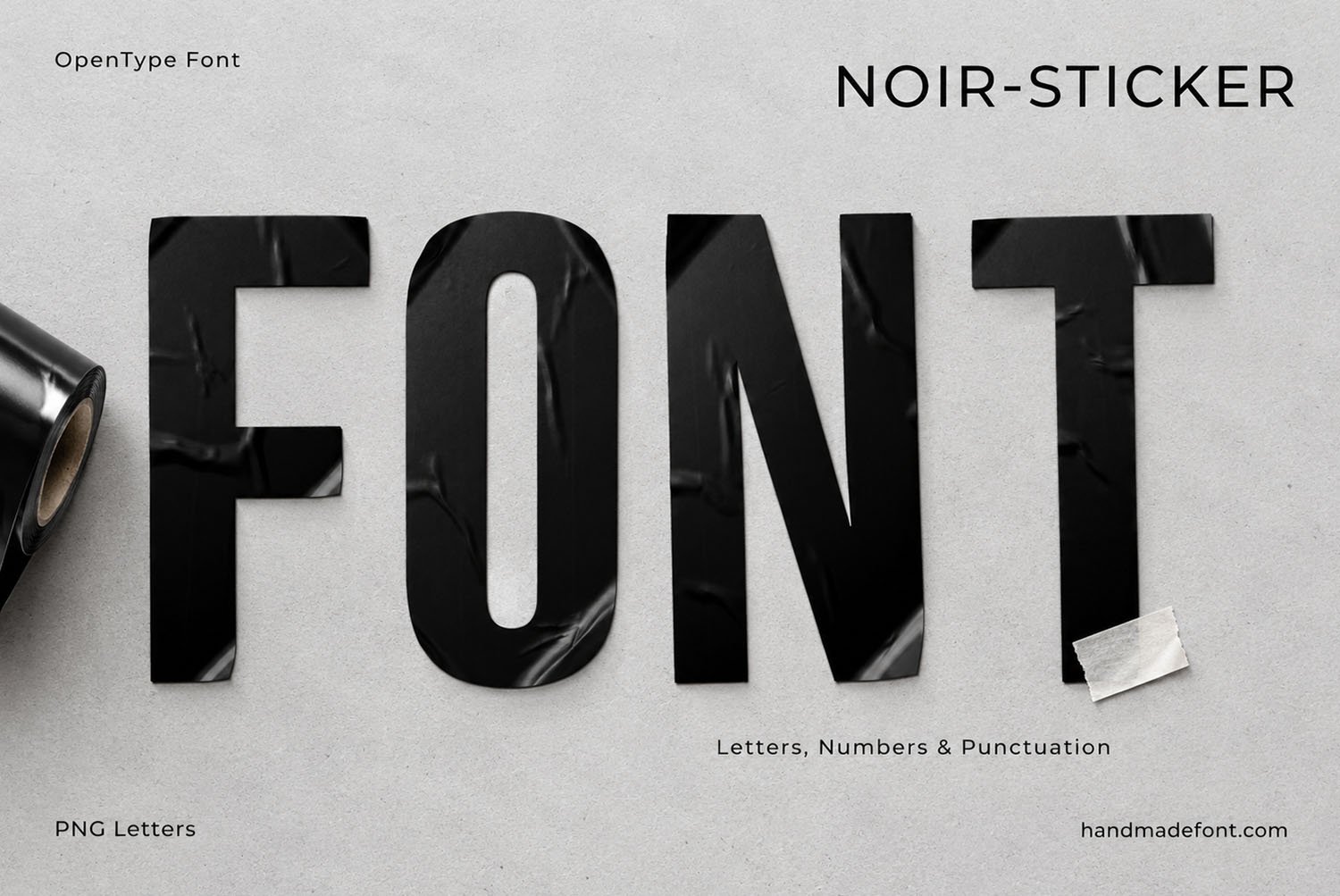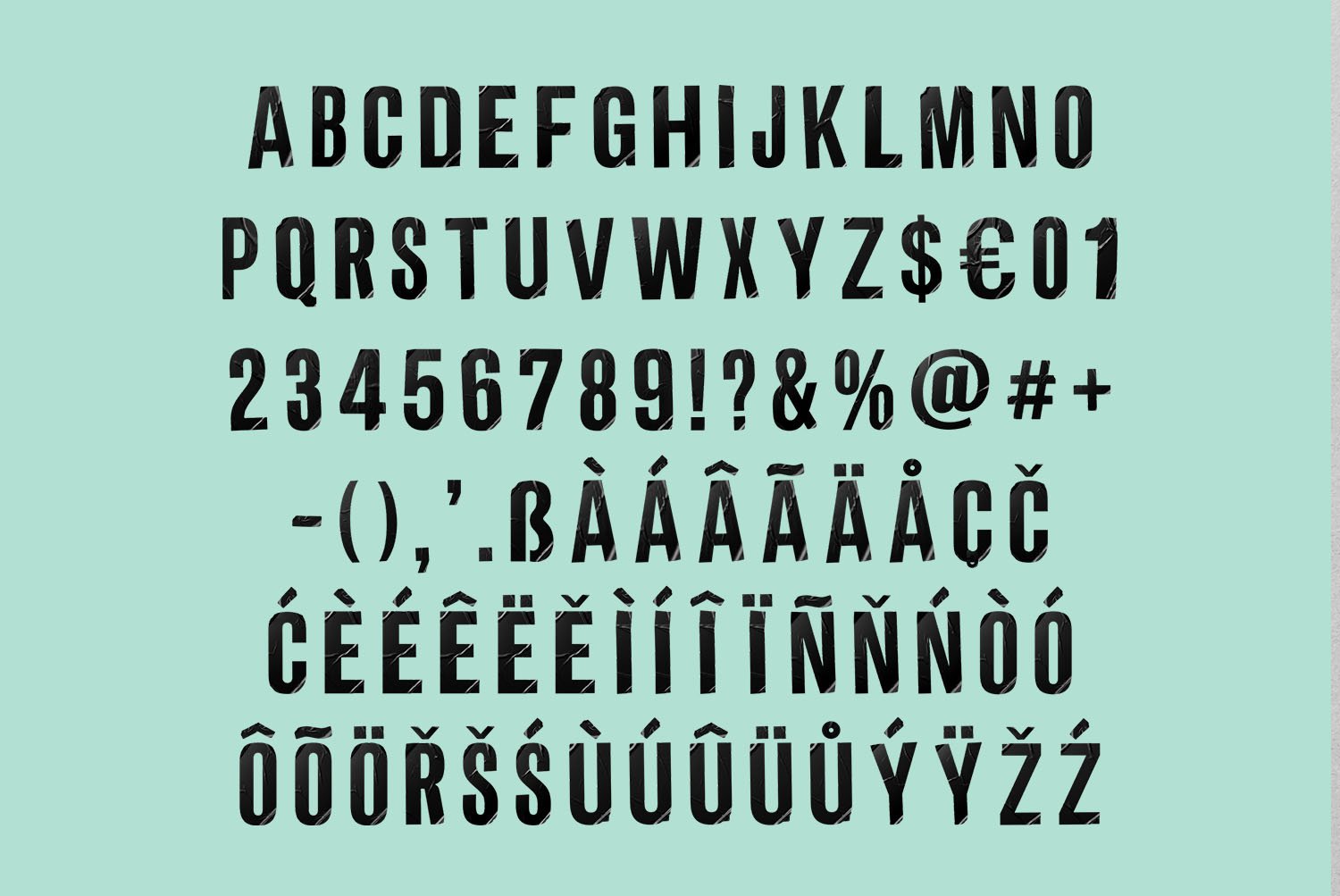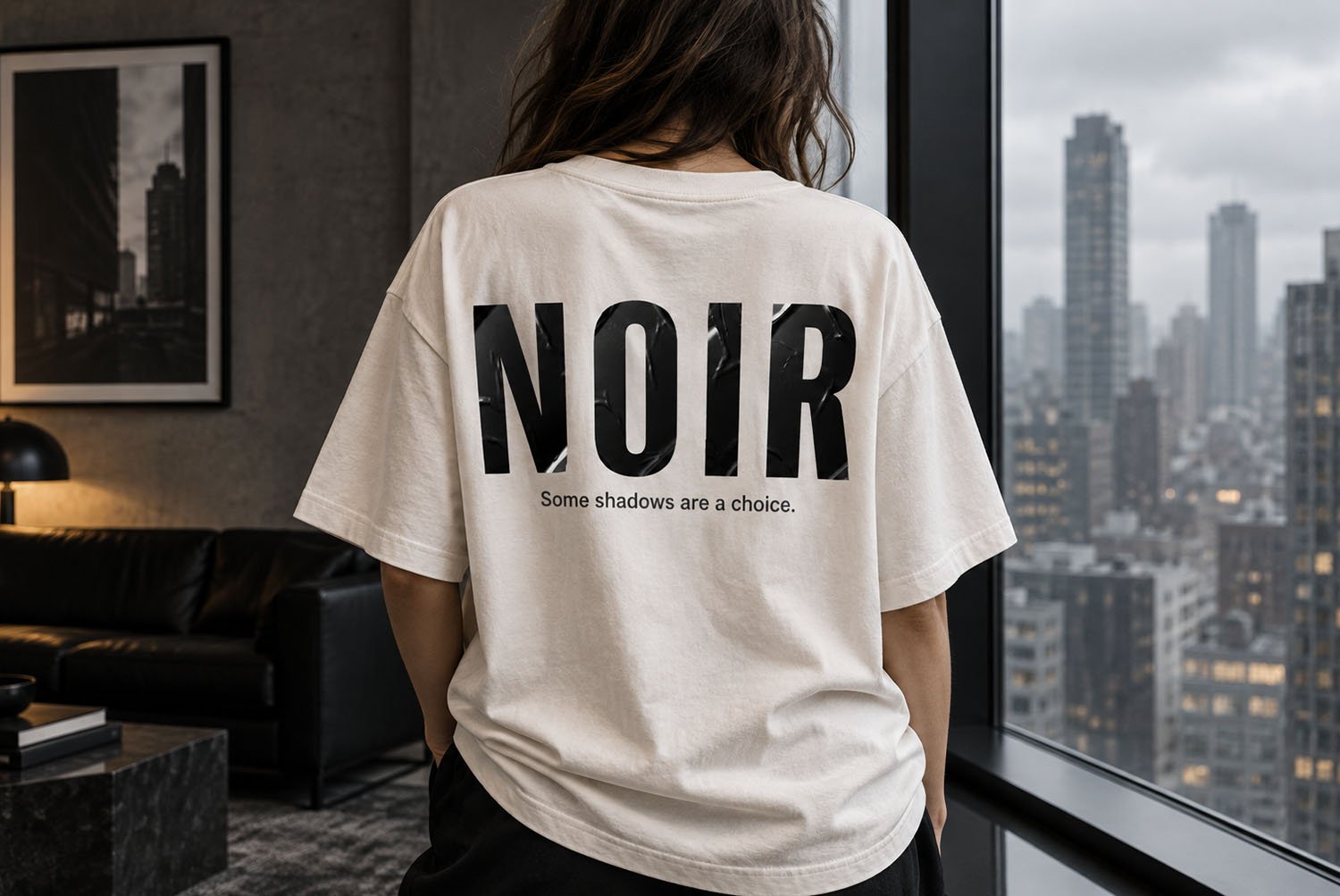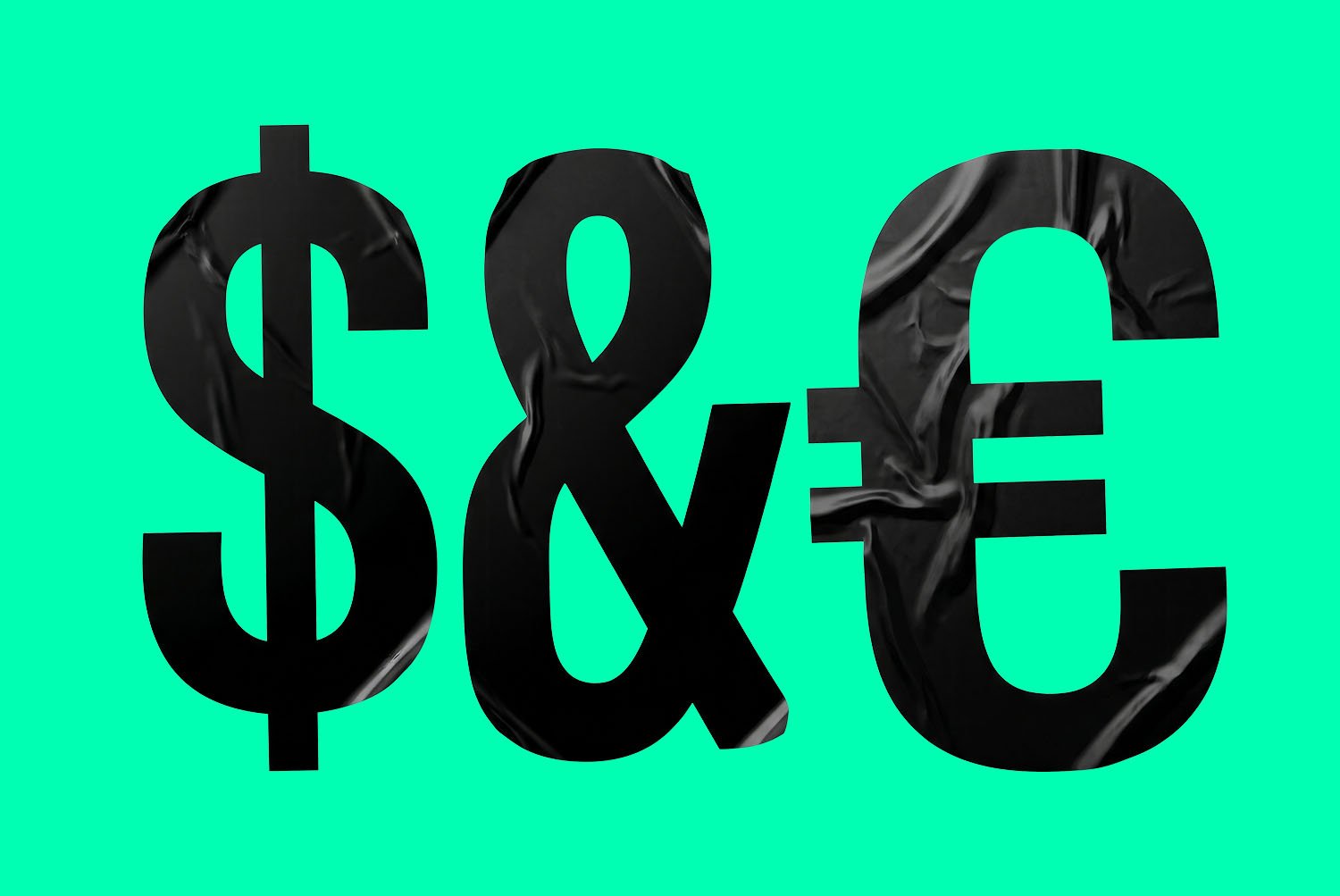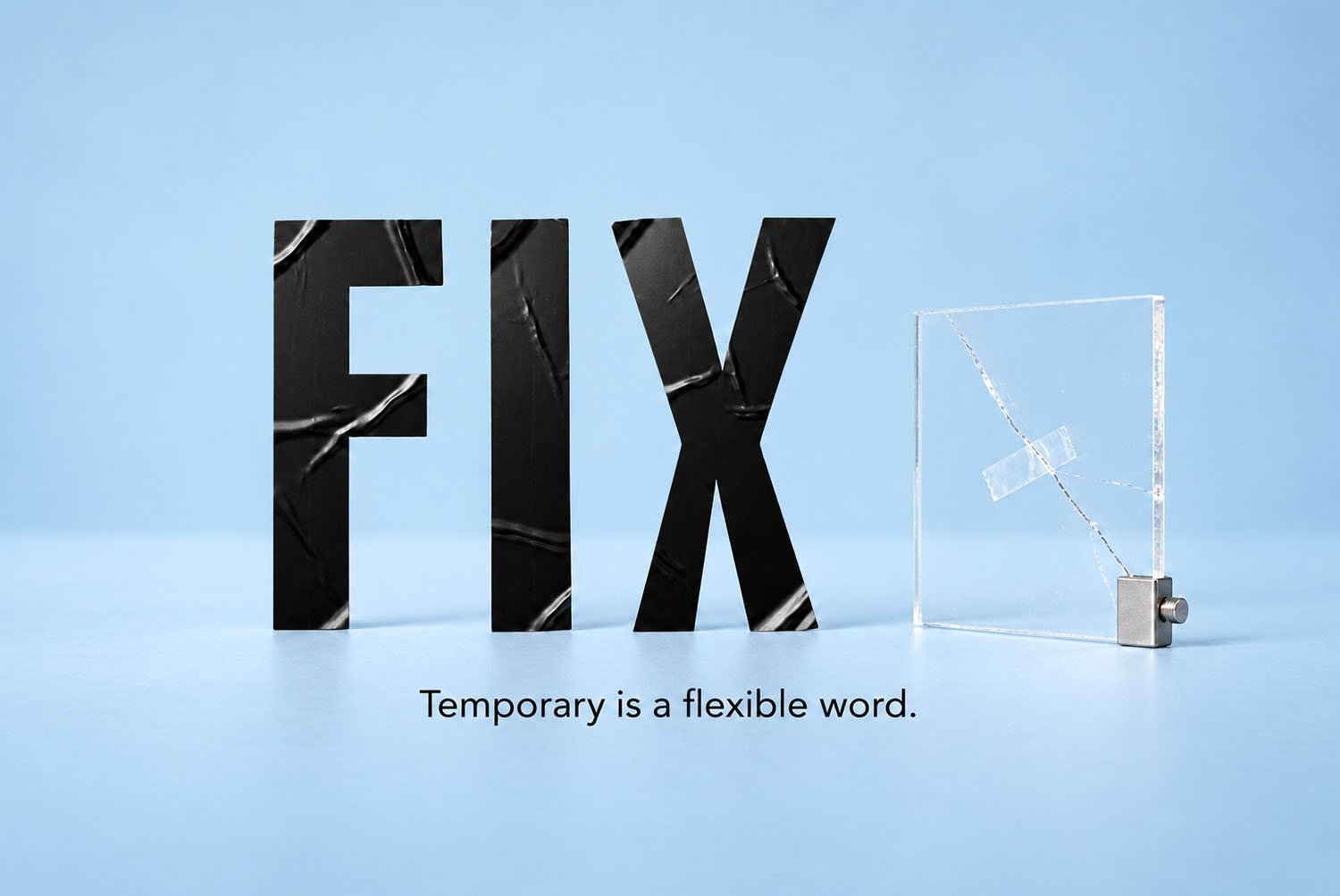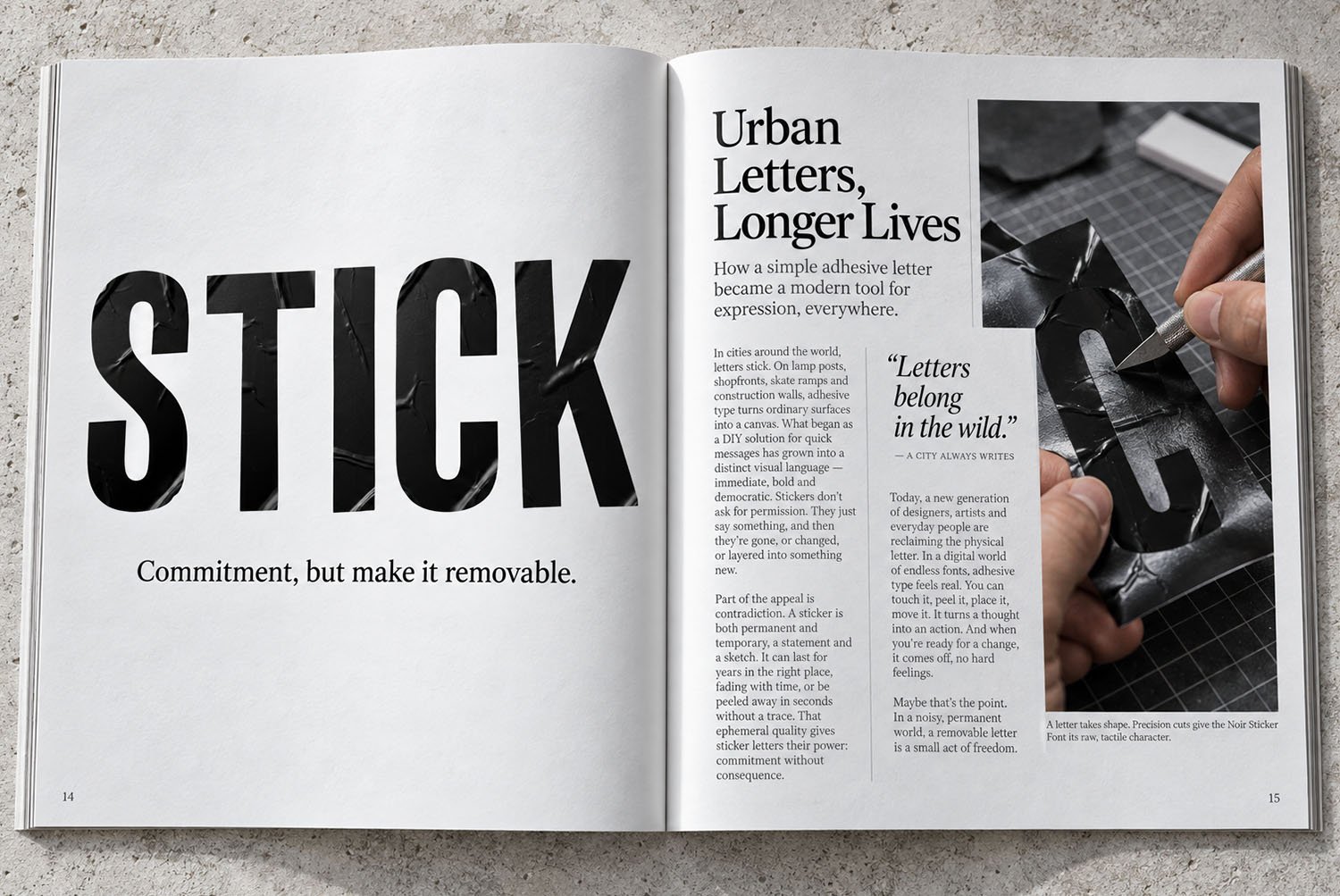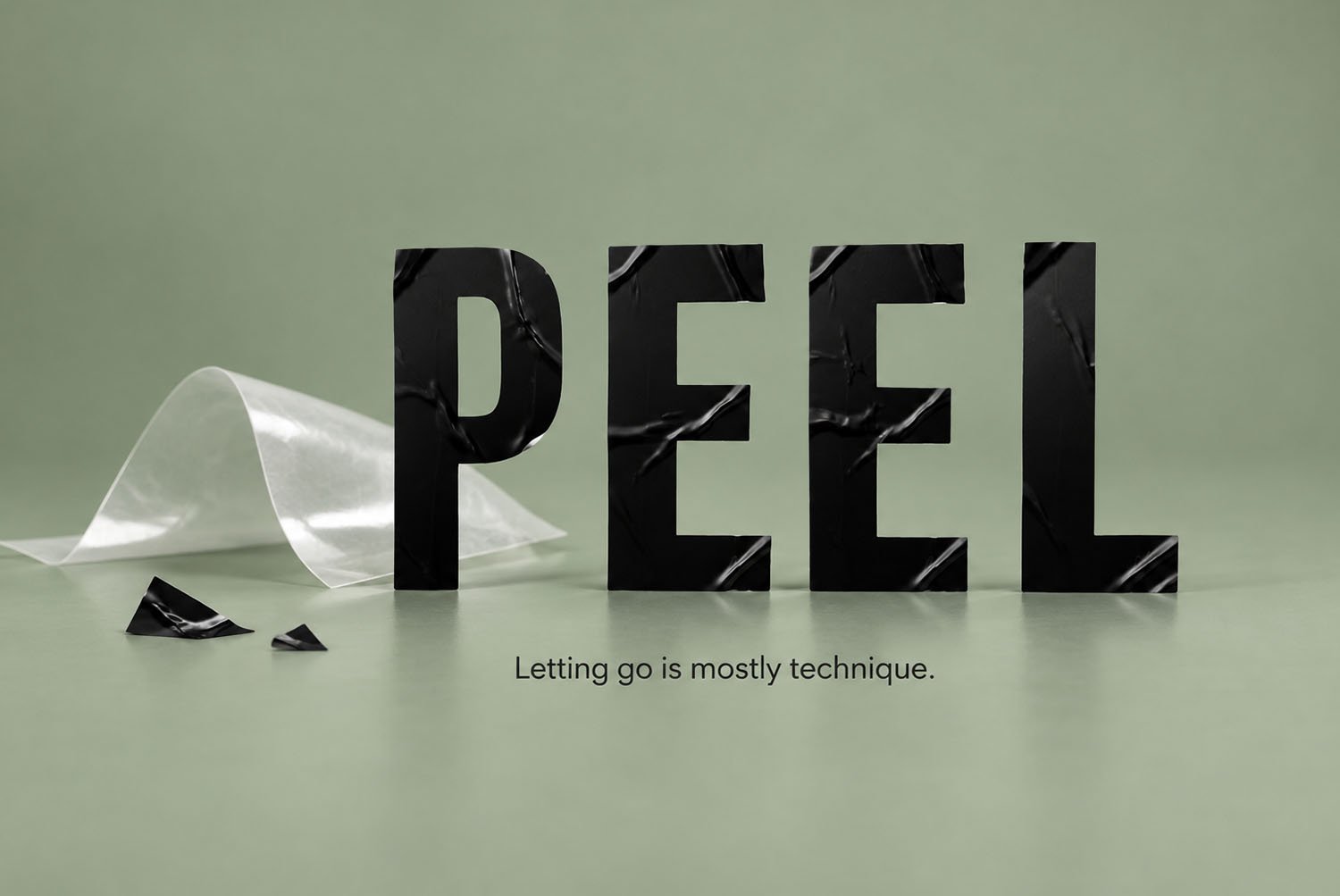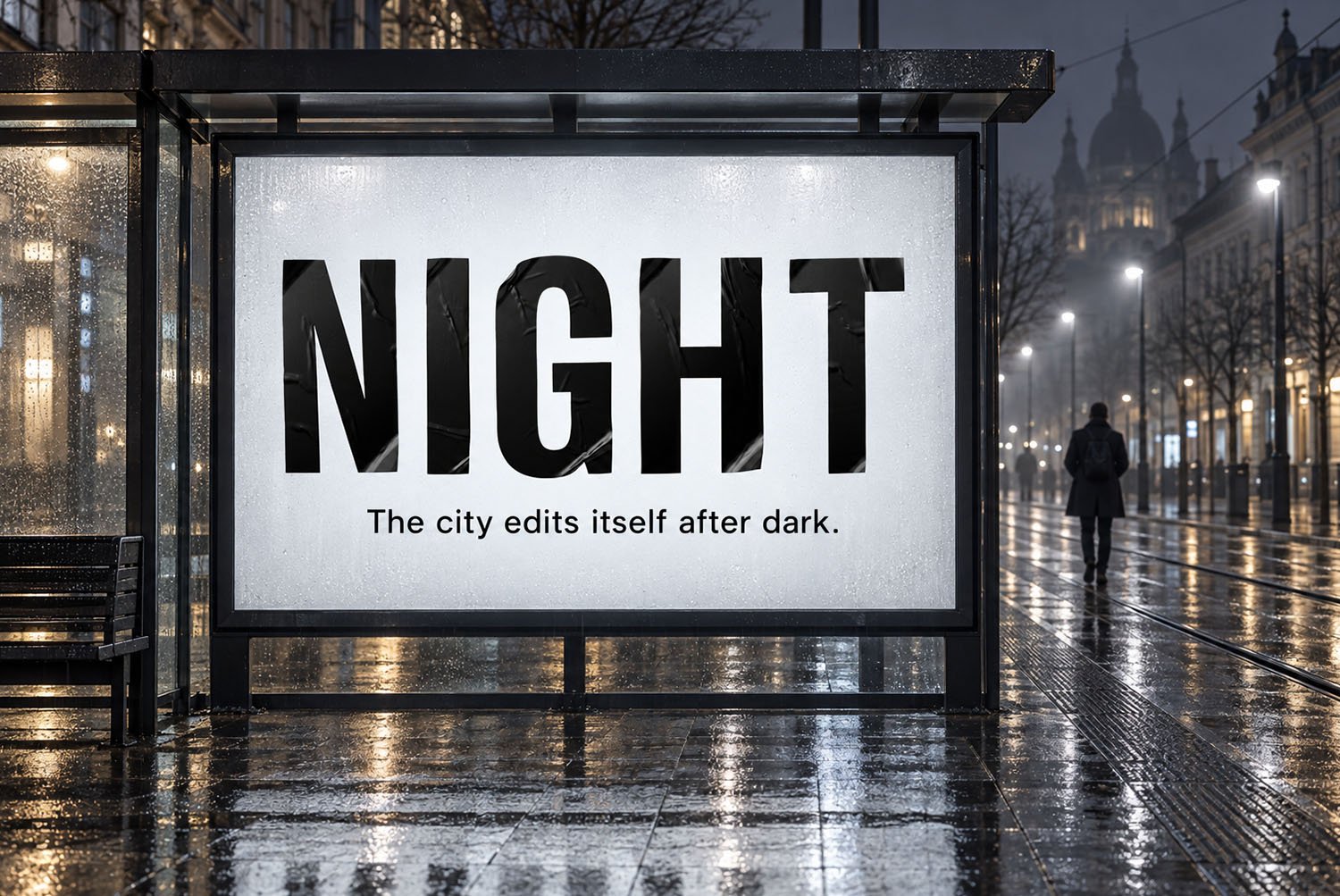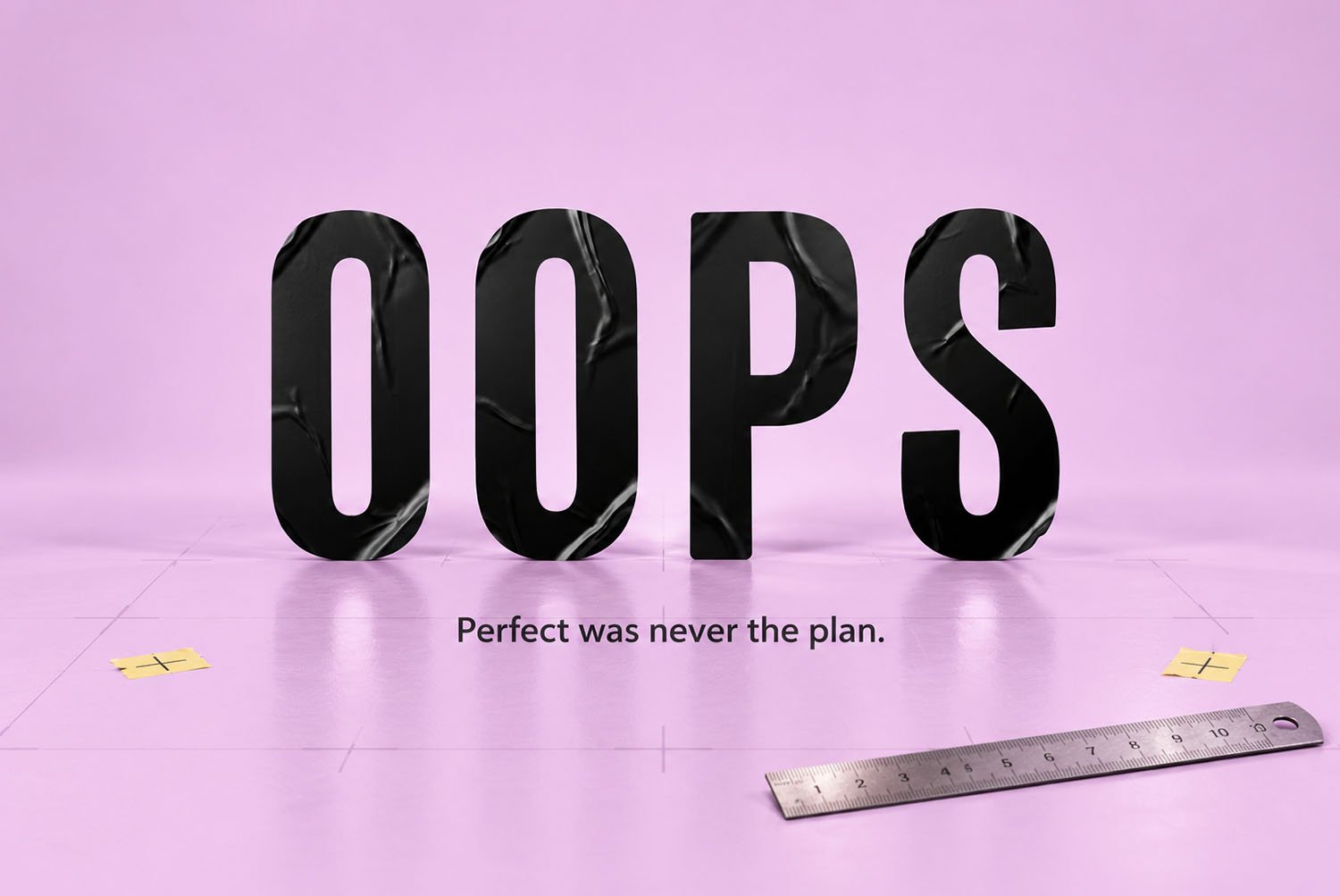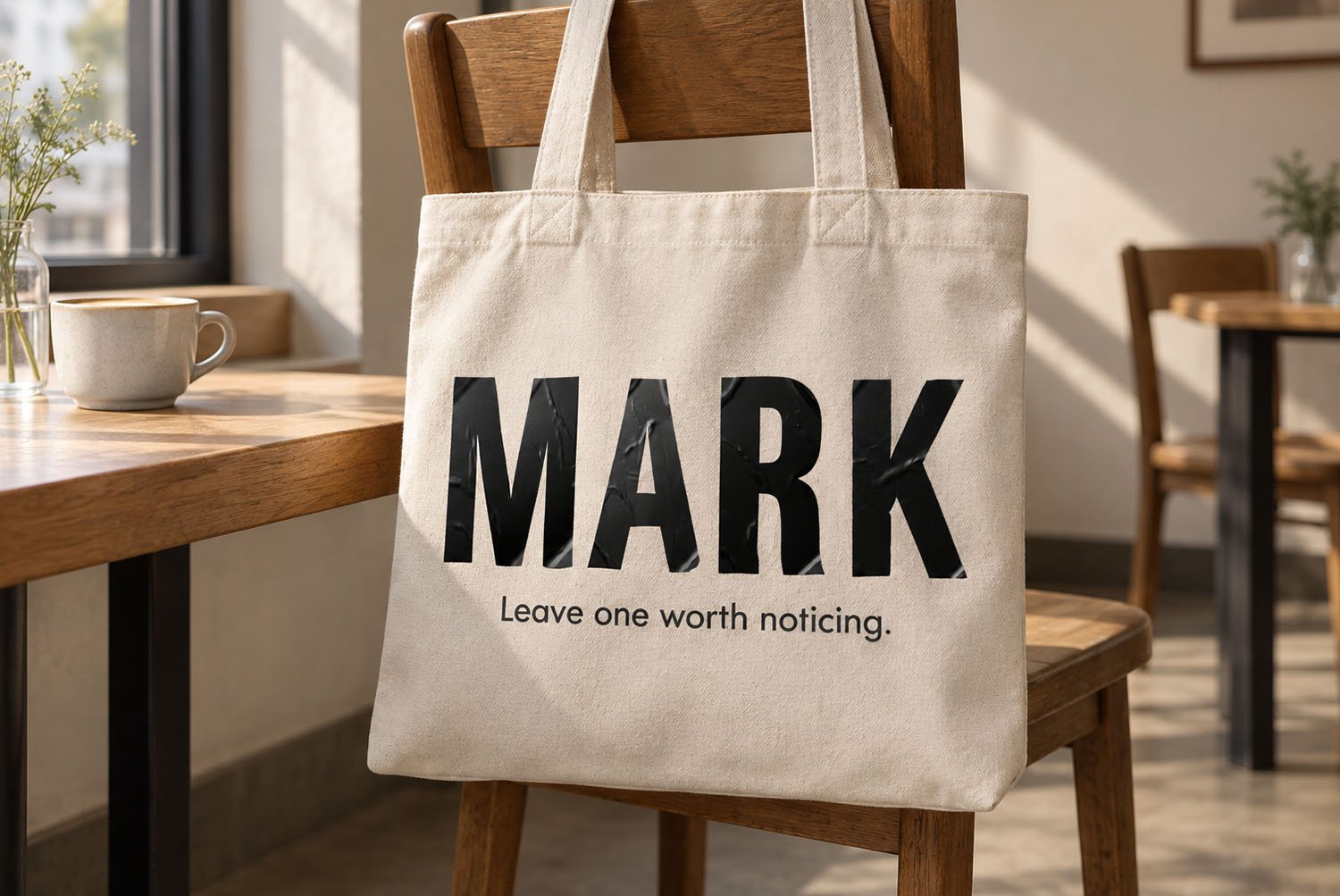
Noir Sticker Font
Noir Sticker Font brings a bold urban mood to creative projects. Its dark, sticker-inspired letters combine playful energy with a confident, graphic style that immediately attracts attention. This expressive typeface works perfectly for posters, fashion graphics, branding, album covers, packaging, social media, labels, and modern visual identities. Noir Sticker Font includes an OTF file for easy typing in compatible design software. Every letter is also available separately as a high-quality PNG with a transparent background, allowing you to build custom collages, logos, layouts, and layered artwork with unmistakable contemporary attitude.